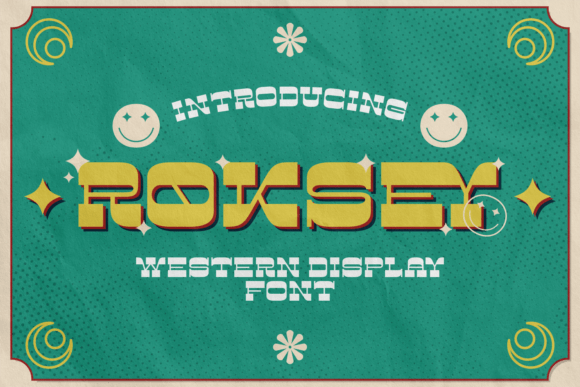
Introducing Roksey Font - A Timeless Masterpiece Inspired by the Wild West
In the vast expanse of typography, where creativity reigns supreme, there lies a font that embodies the rugged spirit of the Wild West - Roksey Font, a retro and stylish slab serif font that pays homage to classic Americana.
Roksey Font, designed by the talented Situjuh, is not just a collection of characters; it's a journey through time, transporting you to an era of cowboys, pioneers, and boundless landscapes. Its bold and rugged letterforms are meticulously crafted to evoke the essence of resilience, adventure, and unyielding determination that defined the American frontier.
With Roksey Font, your designs will command attention and leave a lasting impression. Its striking presence is ideal for branding, packaging, and editorial design projects that demand a touch of nostalgia and rugged individuality. Picture your brand's logo emblazoned in Roksey Font, exuding a timeless charm that resonates with your audience.
Beyond its aesthetic appeal, Roksey Font is engineered for versatility. Its PUA encoding ensures effortless access to a delightful array of glyphs and swashes, empowering you to add intricate details and flourishes to your designs. Unleash your creativity and let Roksey Font elevate your projects to new heights.